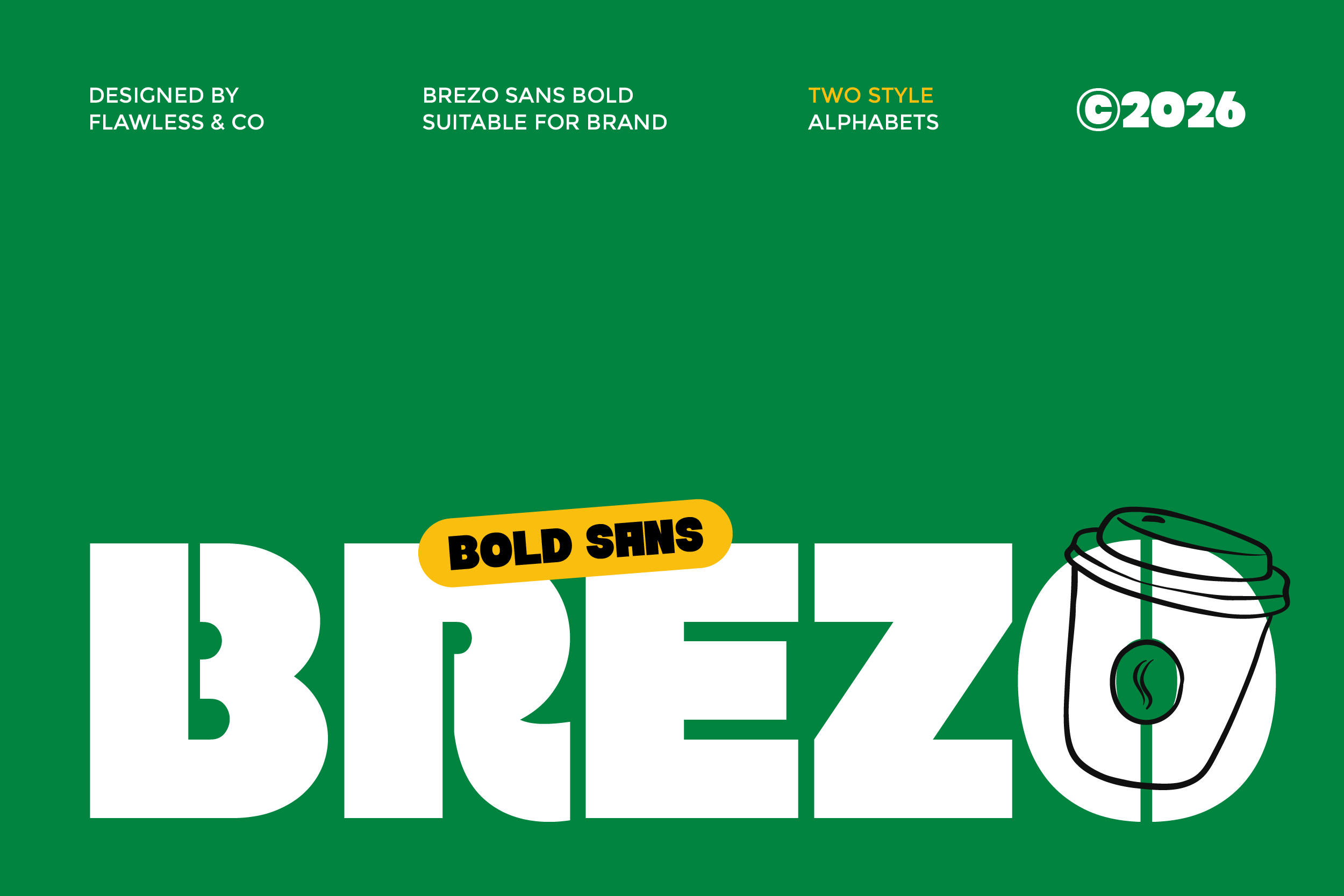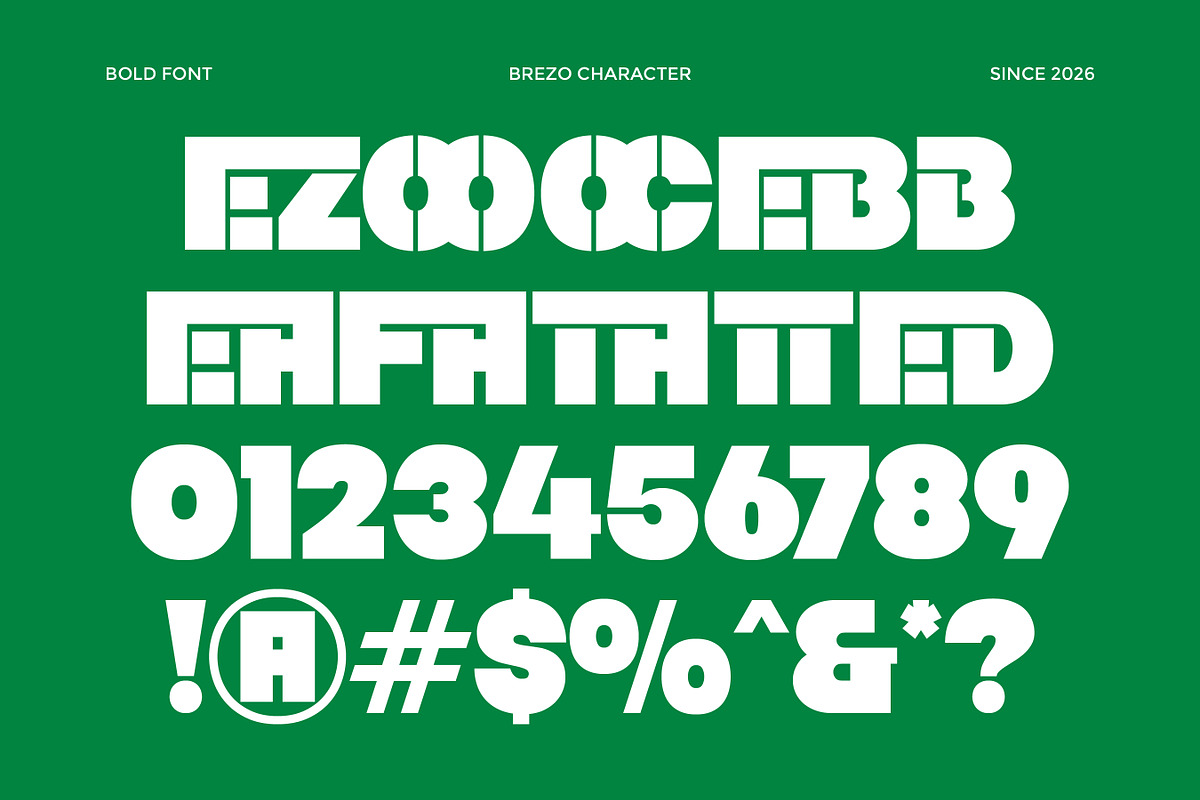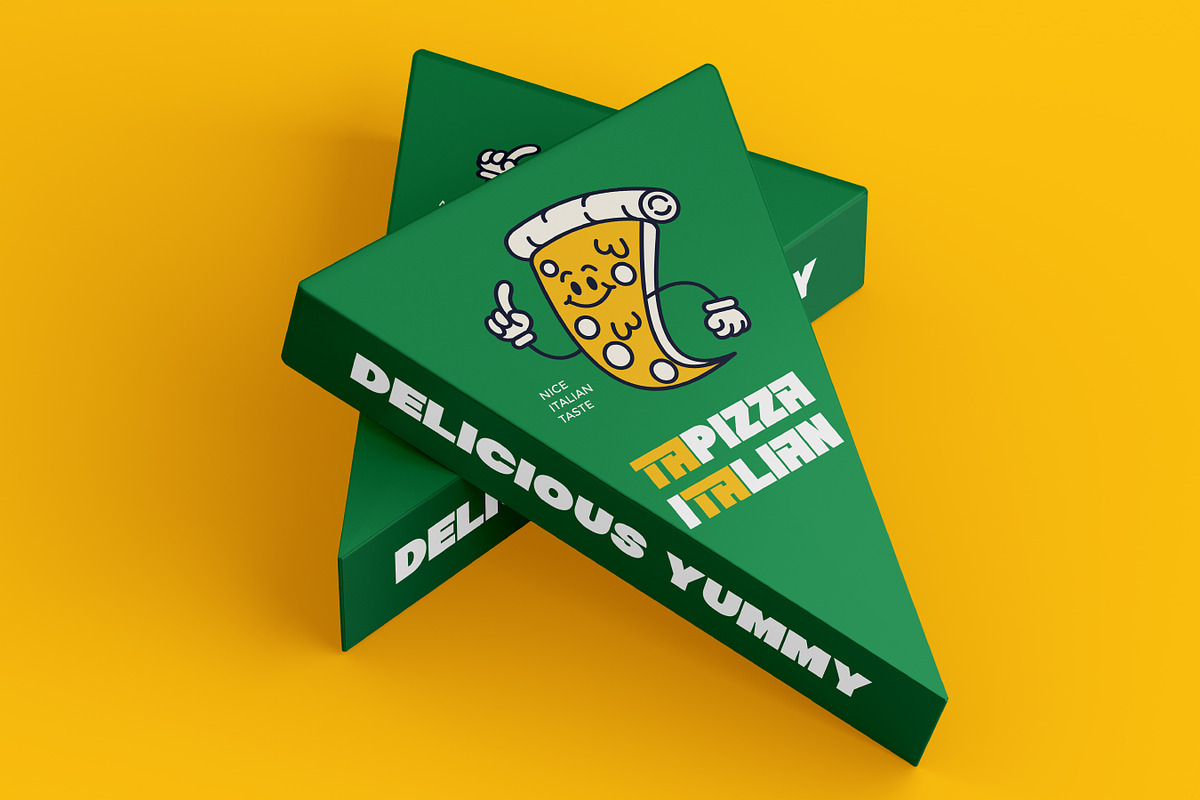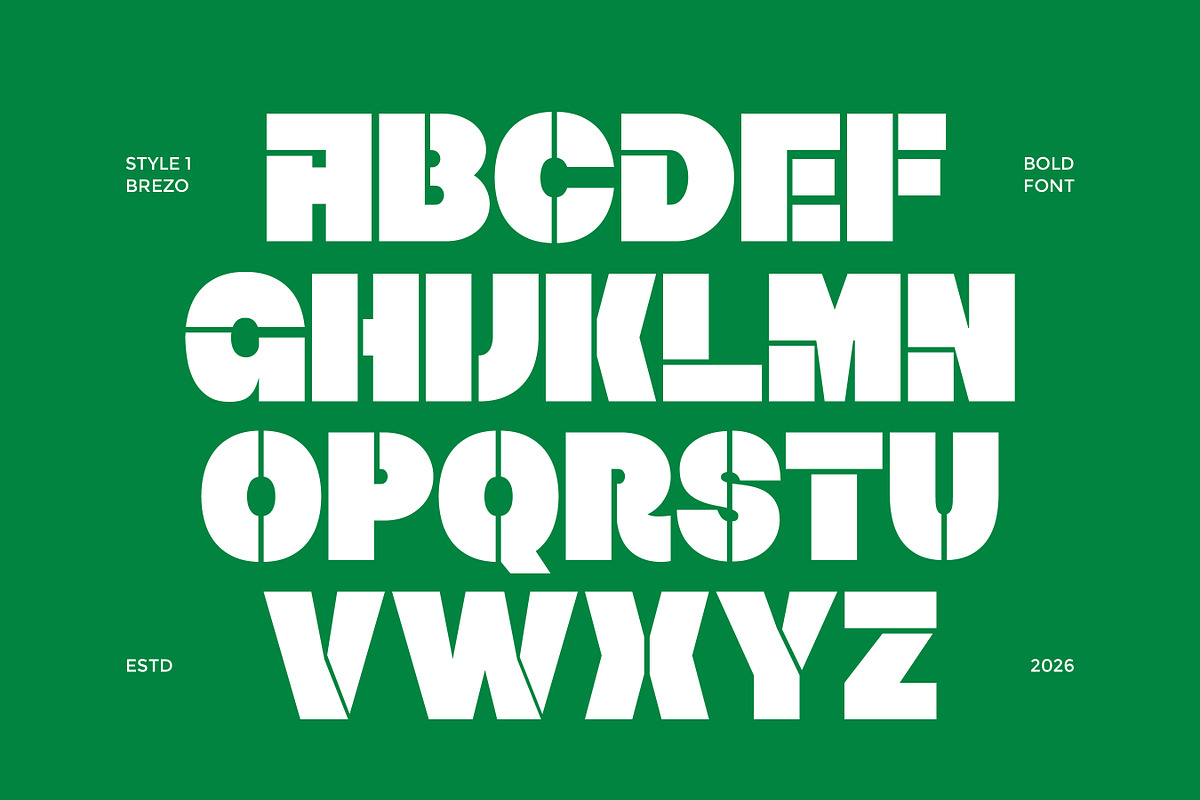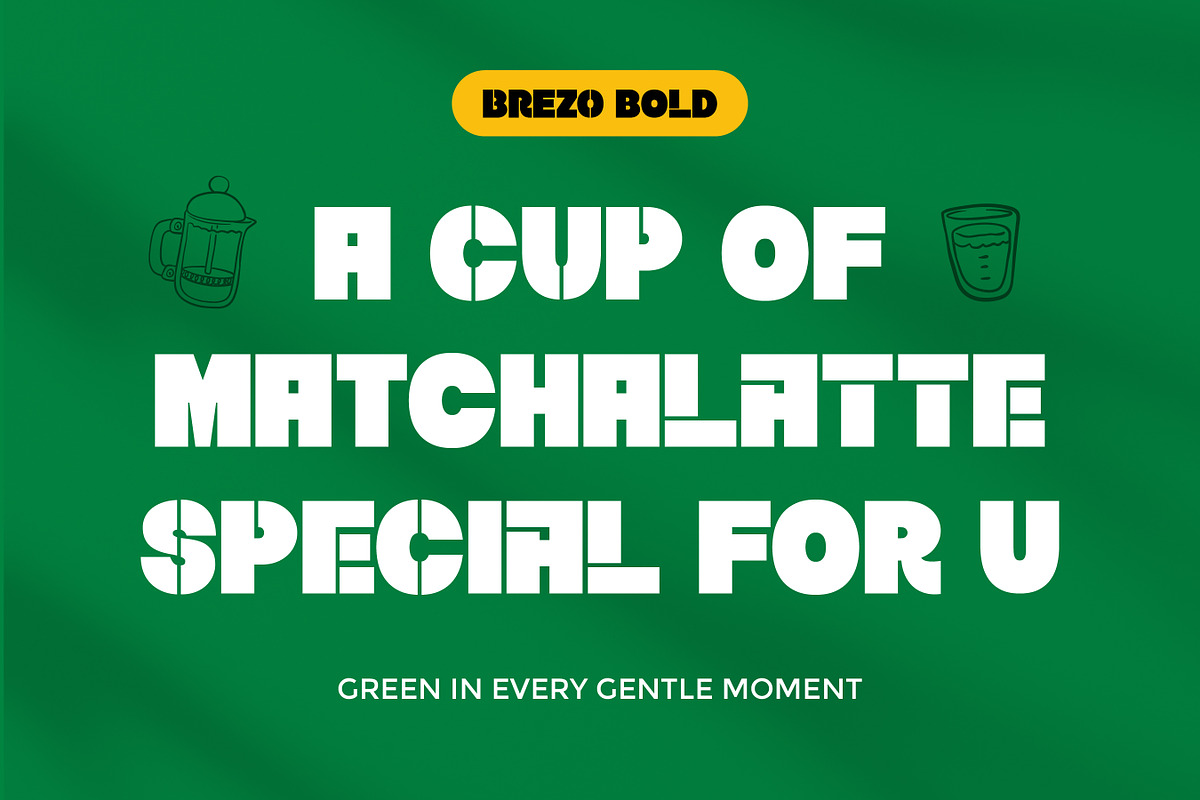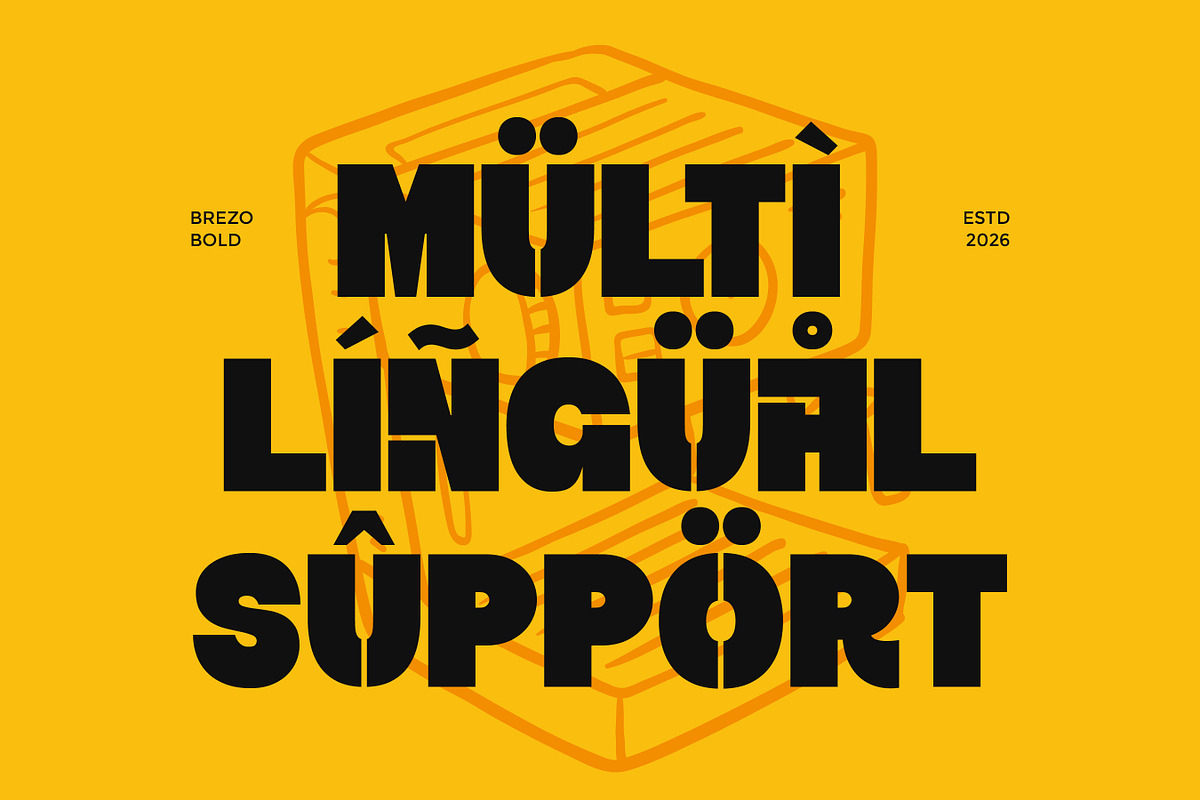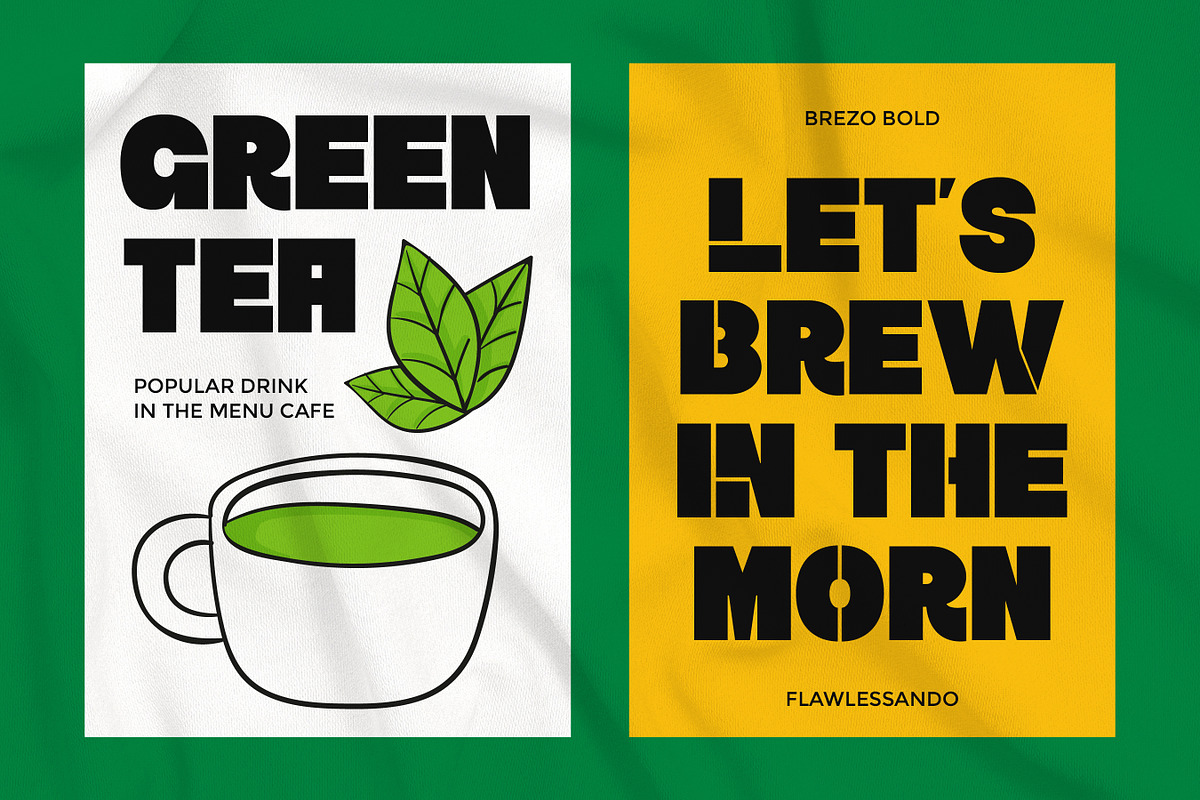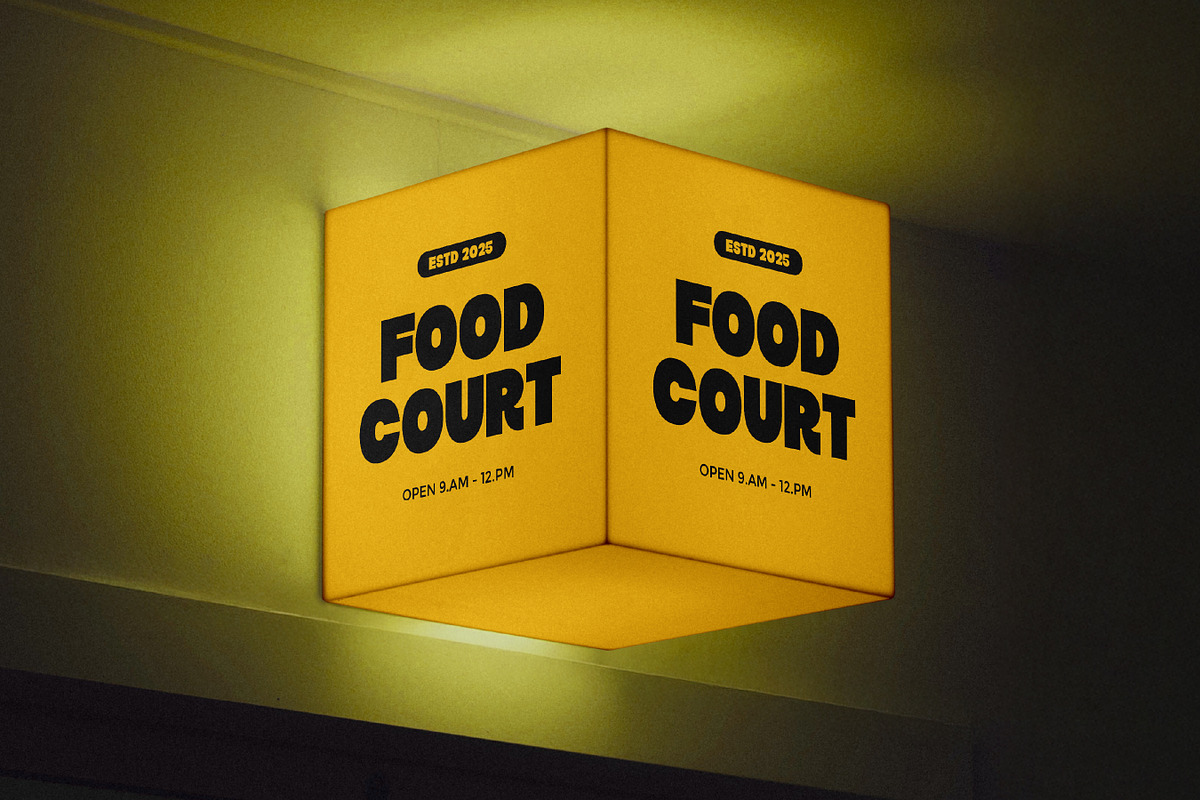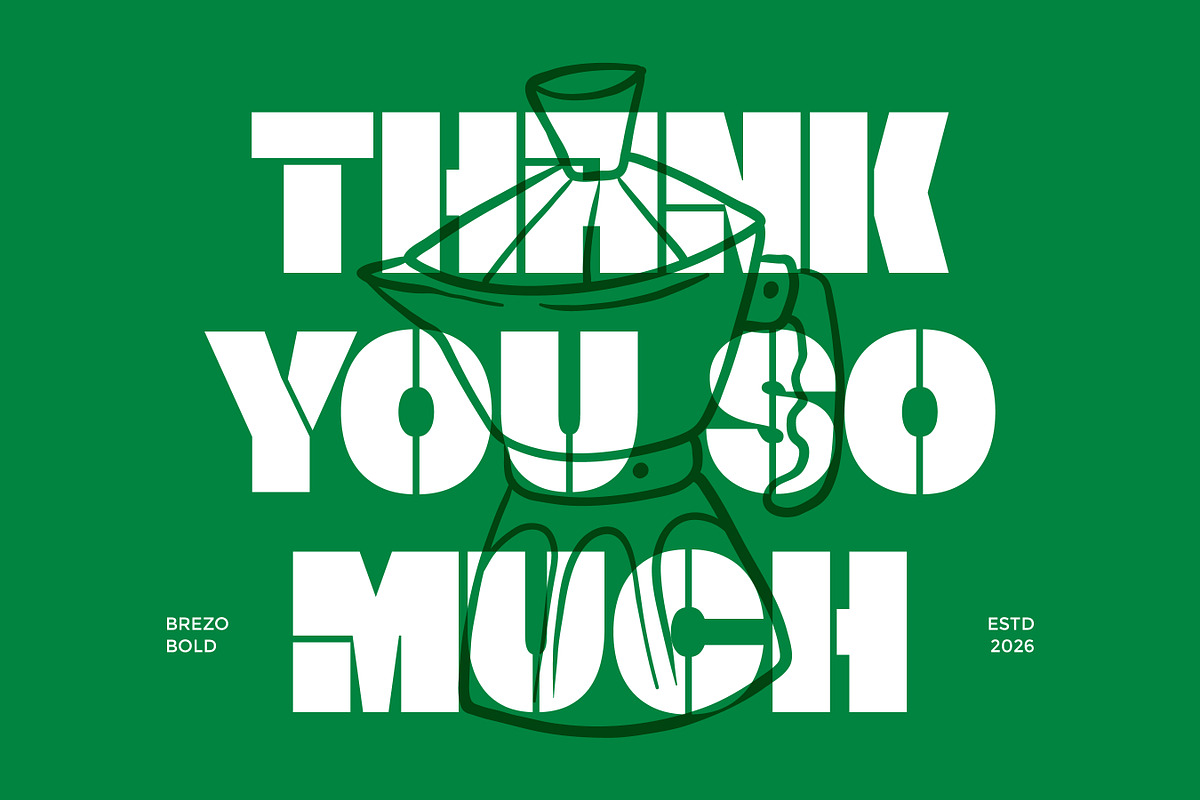
Brezo - Bold Sans Serif Font
Brezo is a bold sans serif font designed to deliver strength, clarity, and modern impact in every letter. With its solid structure, clean lines, and confident proportions, Brezo creates a powerful visual presence that instantly grabs attention. Its minimalist yet strong design makes it highly versatile while maintaining a bold and professional look.
Who Should Use Brezo?
Brezo is ideal for designers, creatives, and brands looking for a bold and modern typeface with a strong personality. It’s especially suitable for projects that require a clean, impactful, and confident visual identity.
Suitable For:
- Modern and bold branding
- Logo and identity design
- Posters and headlines
- Advertising and marketing materials
- Corporate and business design
- Social media graphics
- Packaging design
- Strong typography projects